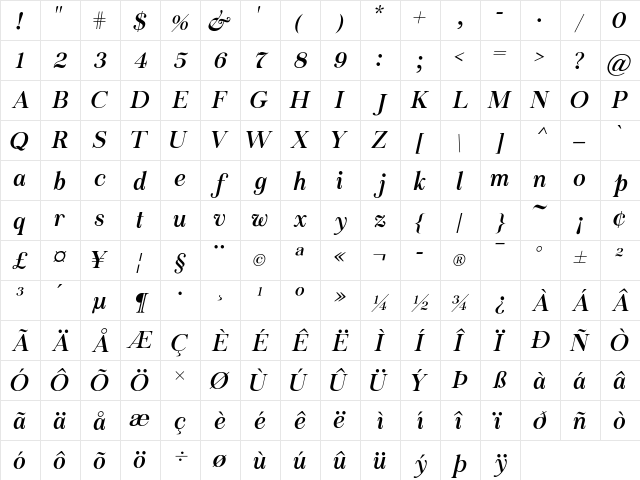
Chapaza Italic Italic
| Designer | Steve Gardner |
Design Context for Chapaza Italic Typeface
Chapaza Italic takes a measured approach to typography — its balanced proportions and neutral character make it a reliable workhorse for both digital and print work. The slanted form adds forward momentum and visual energy.